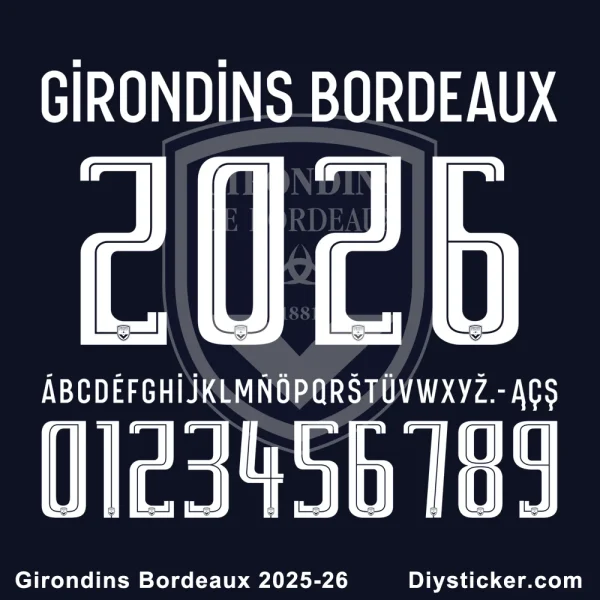
Design with French Elegance: The Girondins Bordeaux 2025-26 Font
Bring the style and history of one of France’s most celebrated clubs to your projects with the Girondins Bordeaux 2025-2026 Font. This officially-styled typeface, featuring special characters, is designed for fans and creators who want to produce authentic kits, fan merchandise, and graphics that honor the club’s unique identity.
Note: There is no mark on the number, no small hole/dot or any type of effect (truetype rule quality, it will crash the ttf file), so ttf only has normal font, details can be added through vector software editing.